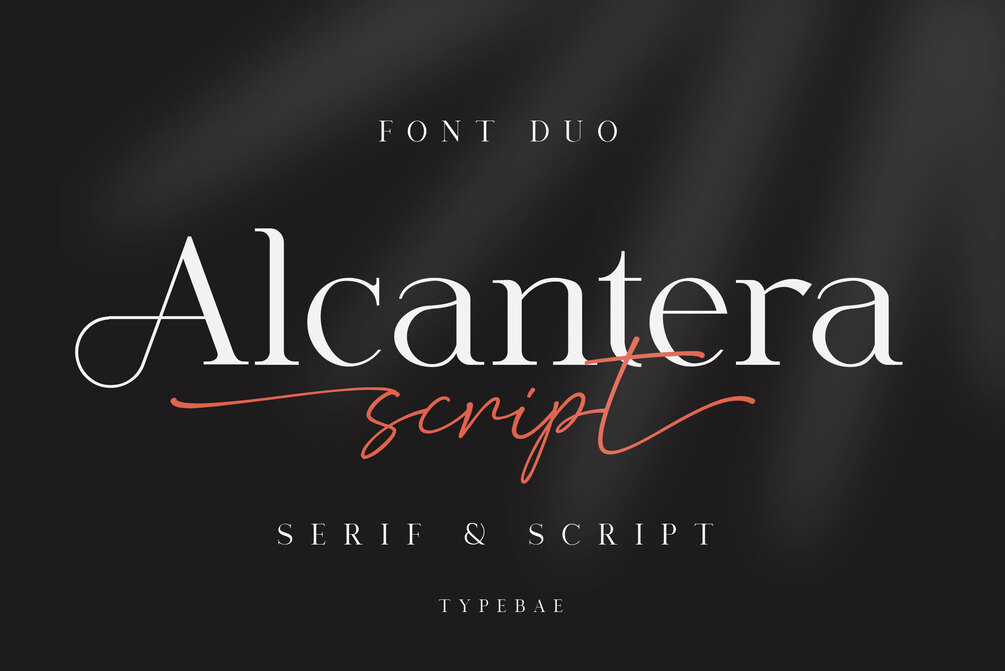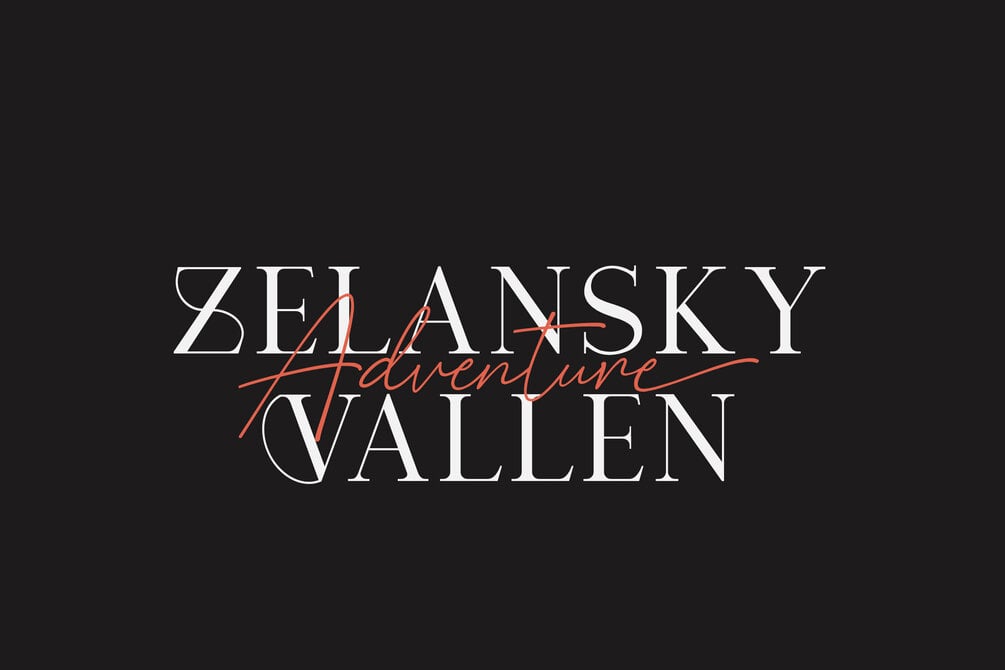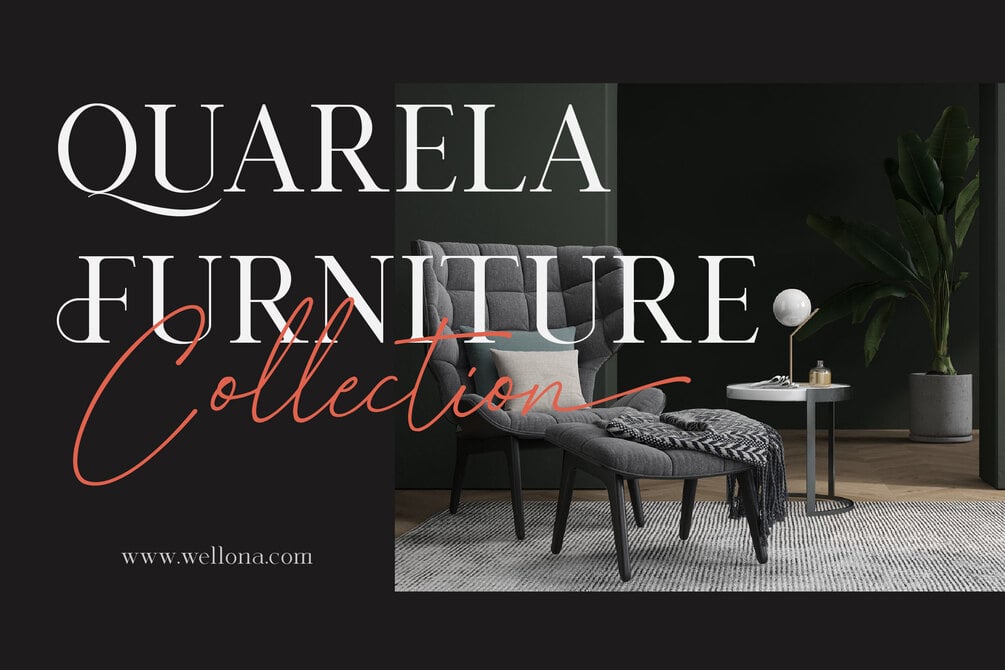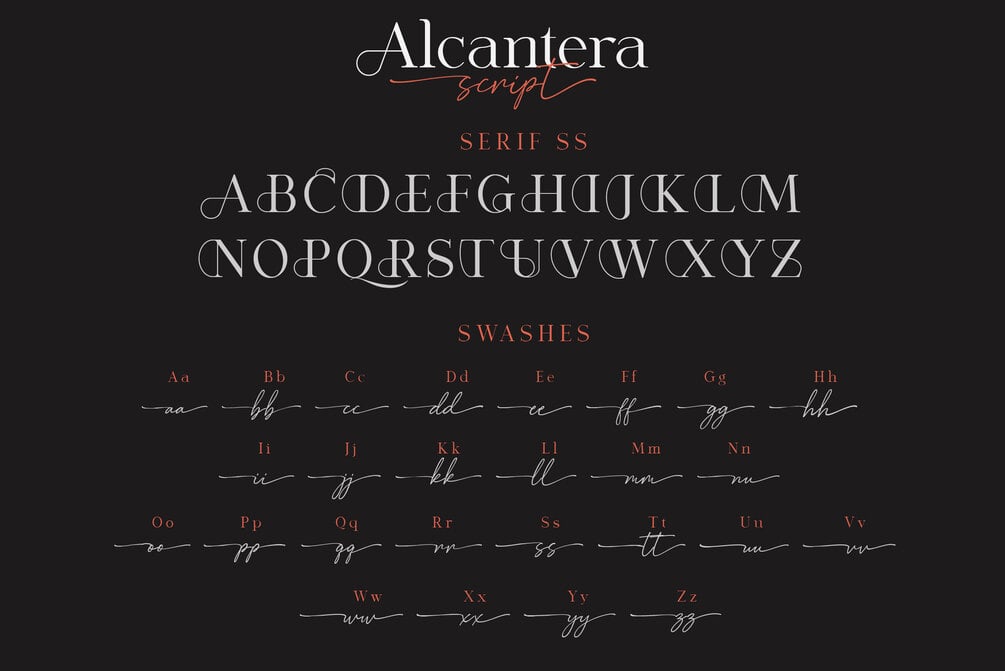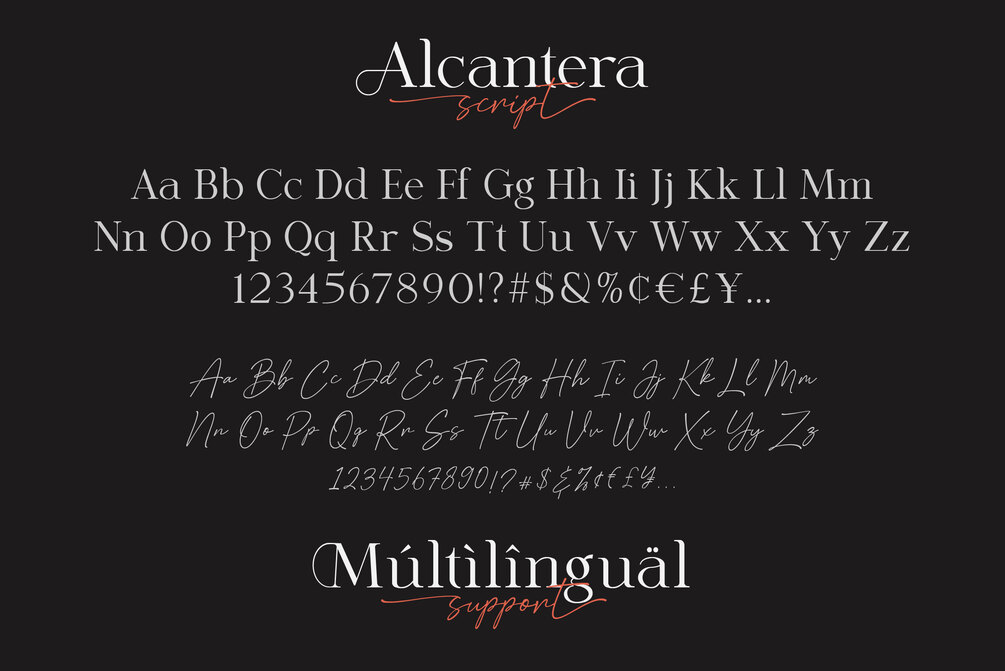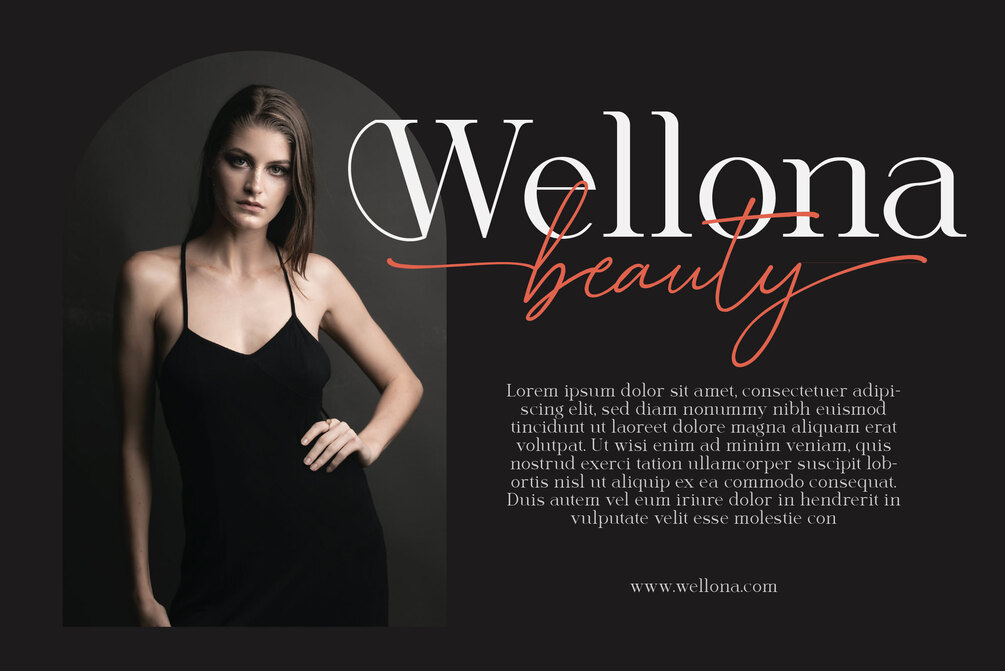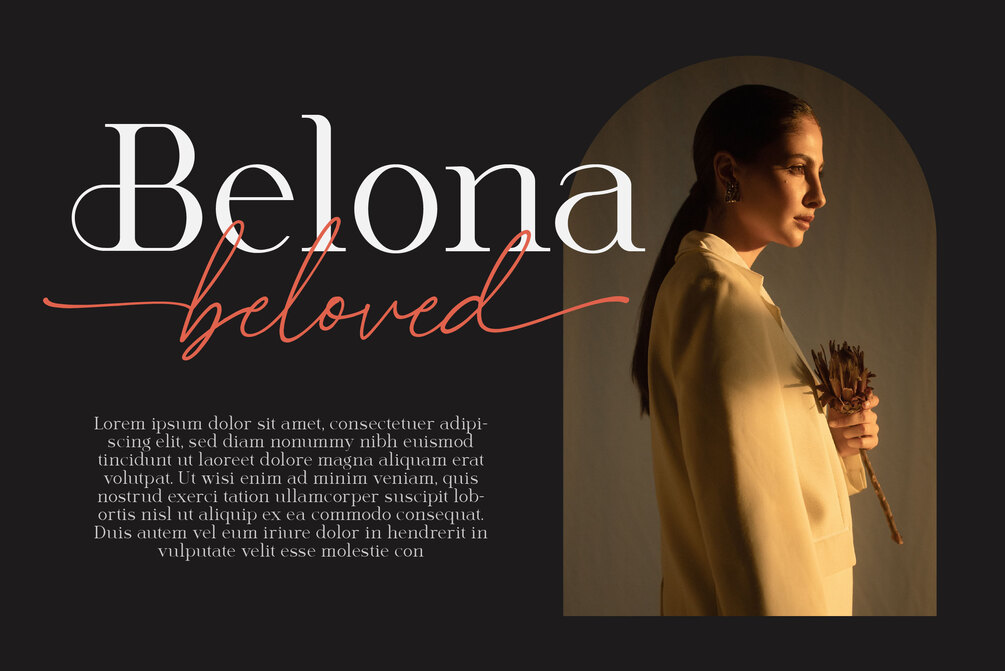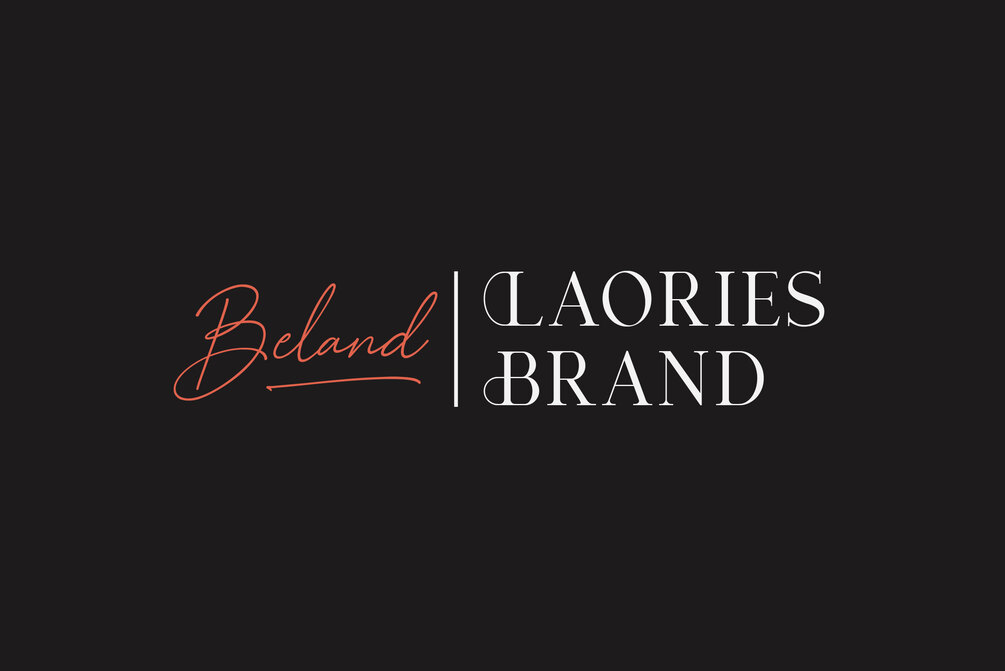
Alcantera
Alcantera Font Duo is a stunning pair of fancy script and serif fonts. These typography are designed to contrast and complement each other with elegant beauty and contemporary style. Use Alcantera Font Duo to create beautiful wedding invitations, beautiful stationery art, great social media posts, cute greeting cards and much more.
Features: Stylistic Alternate, Ligature, Swashes, Multilingual & PUA Encoded